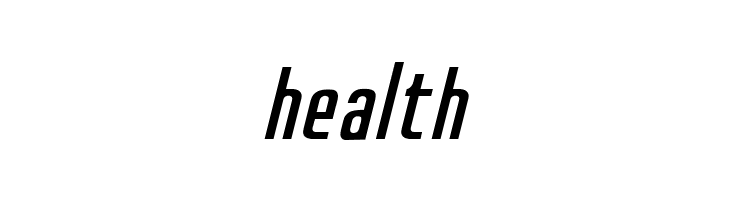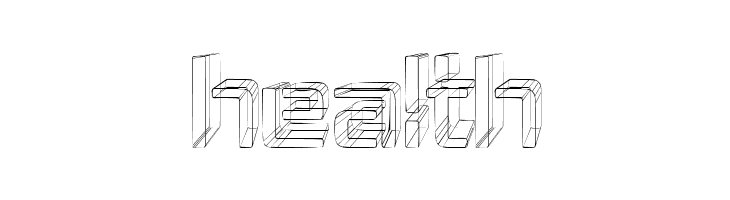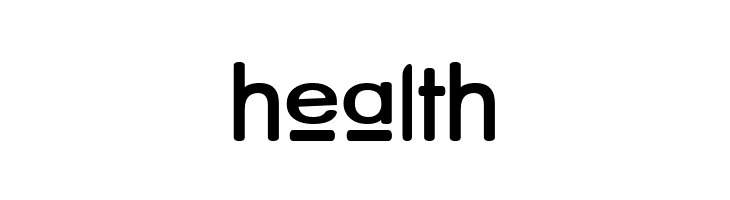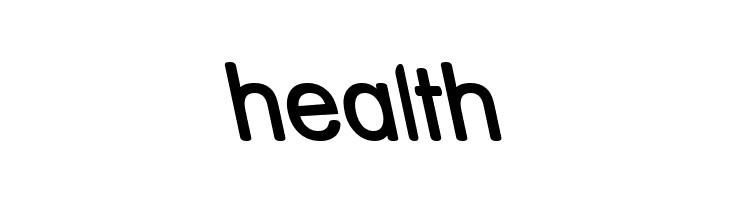
A playful, handwritten font with a casual and friendly vibe.
Bold, italicized font with angular strokes and a futuristic style.
A modern, italic font with a sleek, condensed style and consistent stroke weight.
A bold, geometric outline font with a modern and futuristic style.
A three-dimensional sketch-style font with dynamic, overlapping lines.
A modern, rounded sans-serif font with smooth curves and uniform stroke width.
A modern, semi-bold sans-serif font with rounded characters and excellent readability.
A clean, modern sans-serif font with rounded edges and uniform strokes.
A fine, narrow slab serif font with a modern and elegant style.